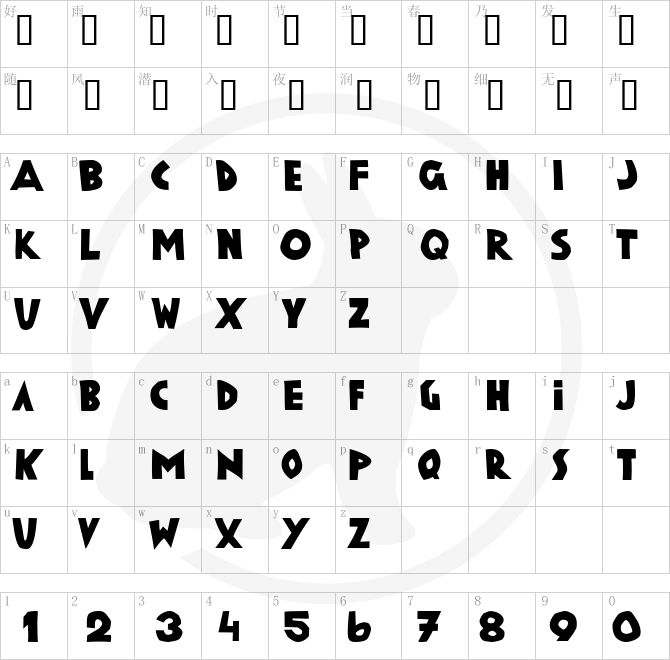
- Font Name:P22 Vienna Black
P22-Vienna-Black-Regular.ttf is a very beautiful artistic font, P22-Vienna-Black-Regular.ttf is widely used in the design and printing of various books and pictures,P22-Vienna-Black-Regular.ttf has a strong visual impact,P22-Vienna-Black-Regular.ttf is a commonly used font in newspapers, magazines and books, and is used in posters, e-commerce Poster design, store design, logo design, font design and other fields.P22-Vienna-Black-Regular.